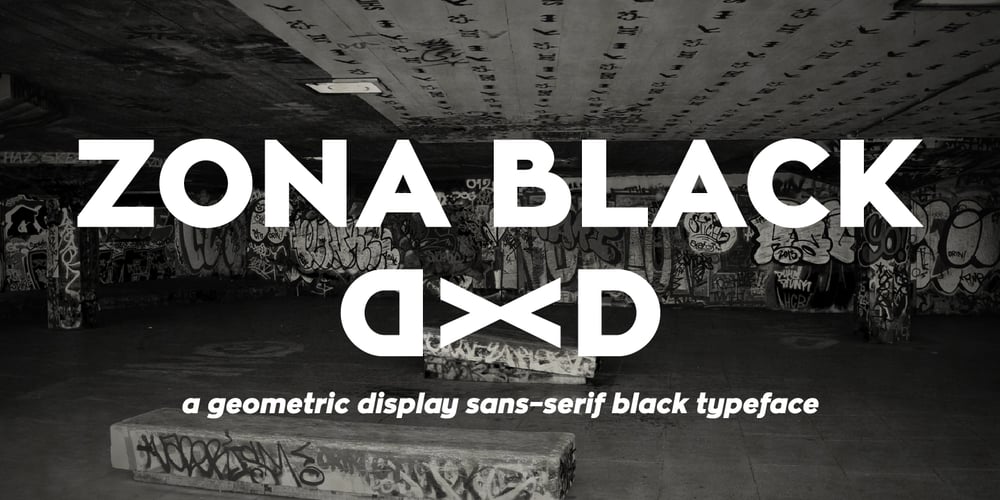
Zona Black
Zona Black font
Zona Black Font Family was designed by Kostas Bartsokas and published by Intelligent Design. Zona Black contains 2 styles and family package options. Zona Black is a geometric sans–serif display black typeface. It was inspired by typography from 1920’s posters featuring clean lines and some quite distinct glyphs such as the uppercase B and the H. Despite being black it’s tall x–height makes Zona quite legible even in smaller sizes.